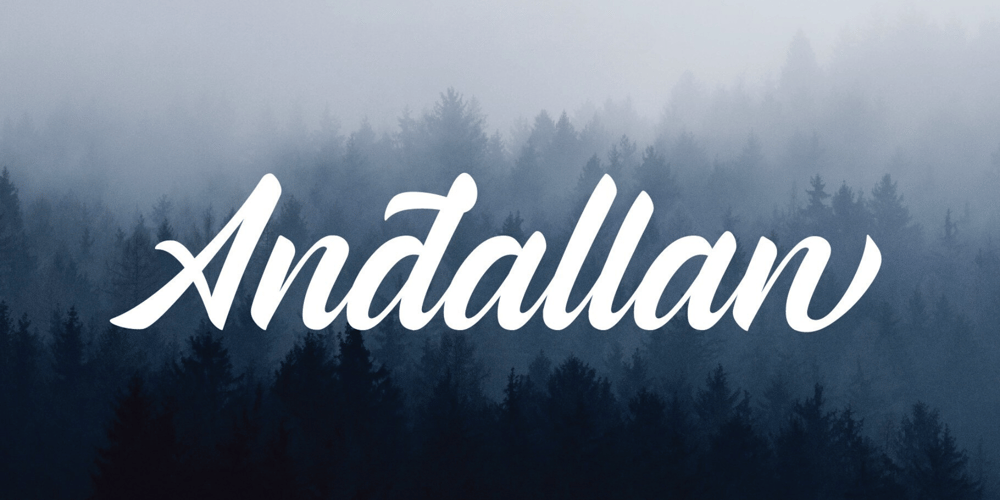
Andallan Font Family was designed by Irpan Maulana and published by Sabrcreative. Andallan contains 1 styles and family package options. Introducing Andallan, a stunning script font designed to add a touch of elegance and sophistication to your creative projects. With its exquisite curves and graceful strokes, Andallan brings a sense of beauty and charm to any design.Featuring both uppercase and lowercase characters, along with numbers and punctuations, Andallan offers versatility and functionality for various design purposes. Whether you’re creating logos, branding materials, invitations, or social media graphics, this script font will captivate your audience with its timeless appeal.One of the standout features of Andallan is its multilingual support, allowing you to seamlessly incorporate different languages into your designs. From English to French, Spanish to German, Andallan ensures that your message can reach a global audience with ease.Furthermore, Andallan comes with ligatures, enhancing the fluidity and natural flow of the script. These ligatures create seamless connections between letters, adding a touch of authenticity and uniqueness to your text.